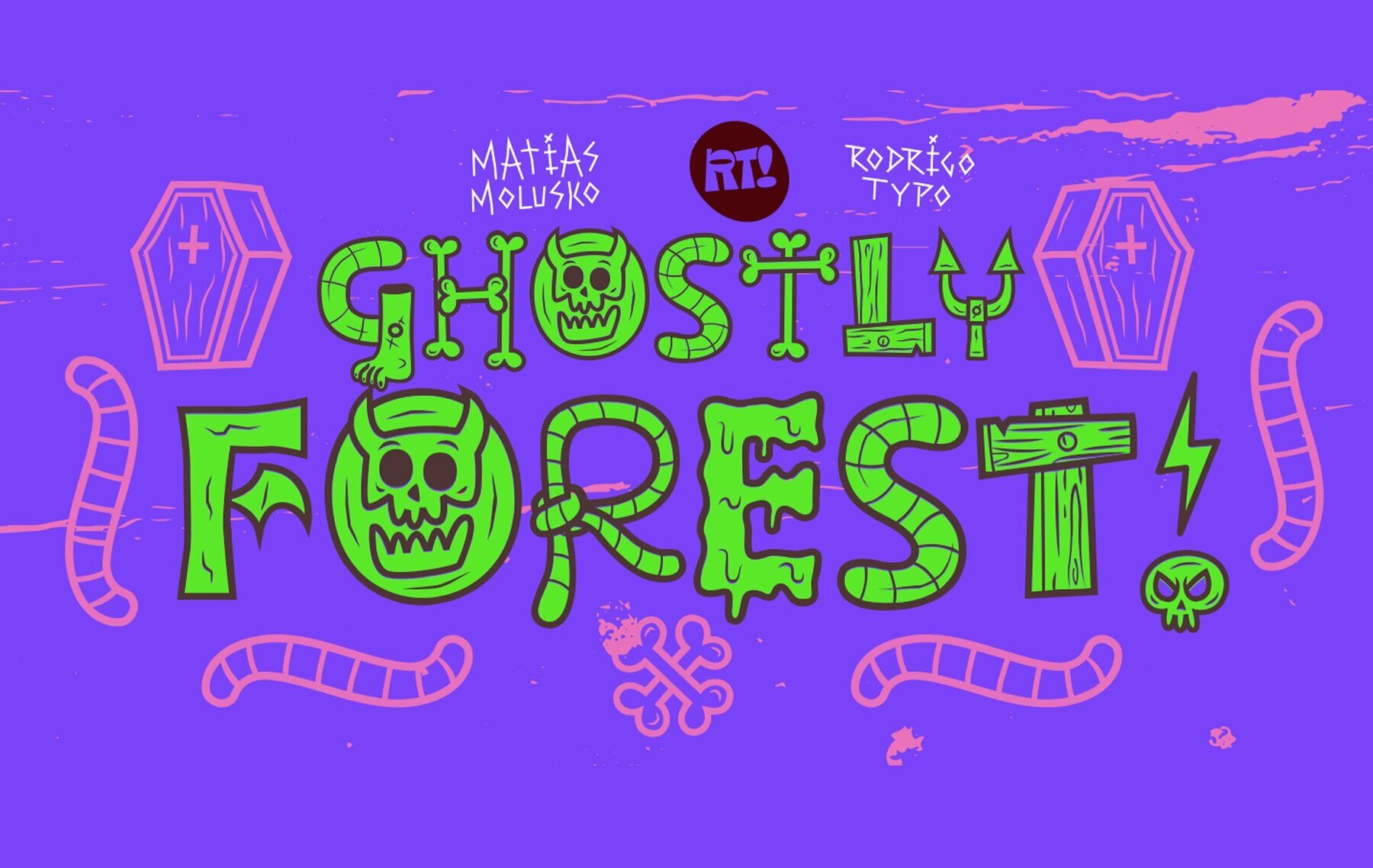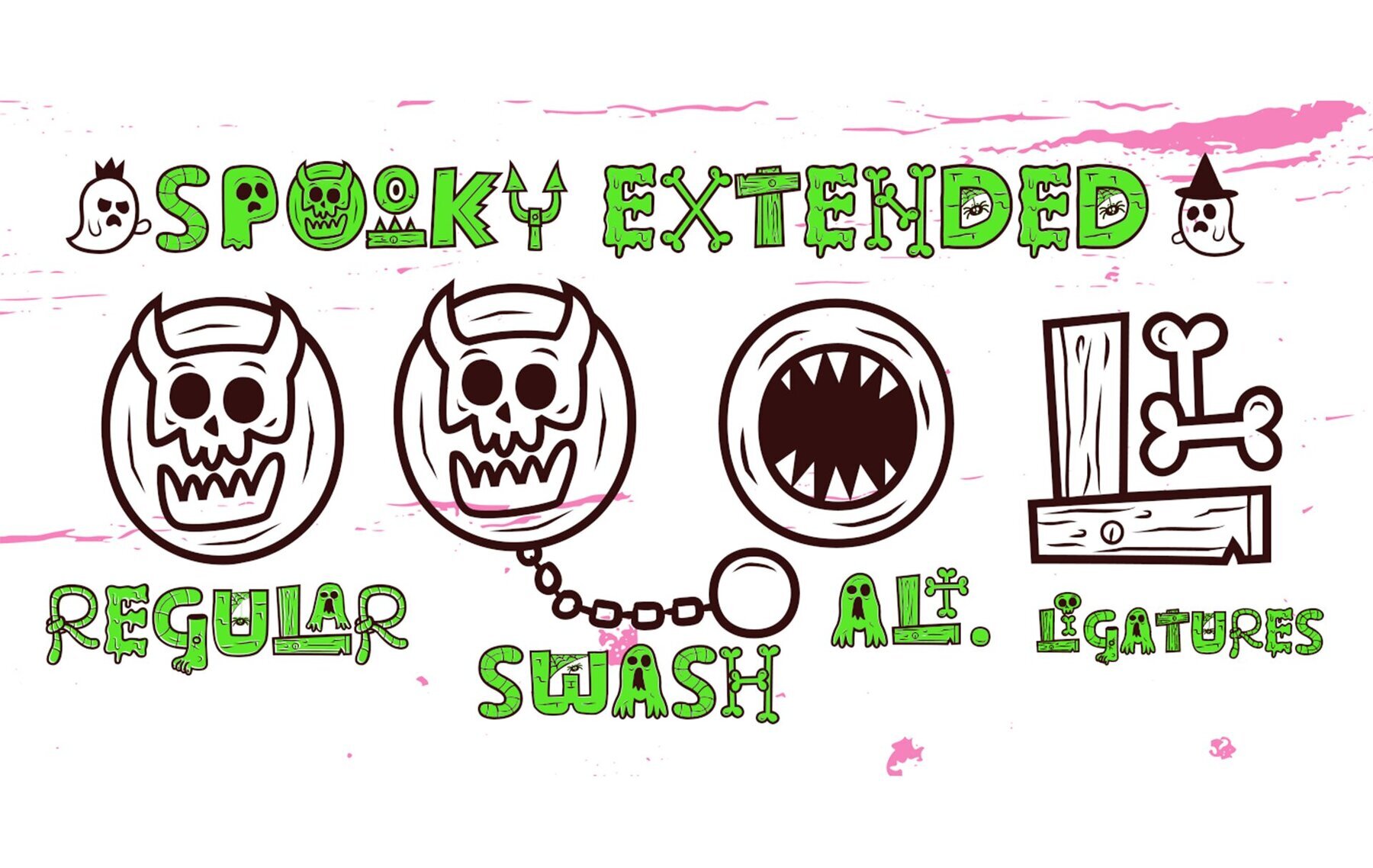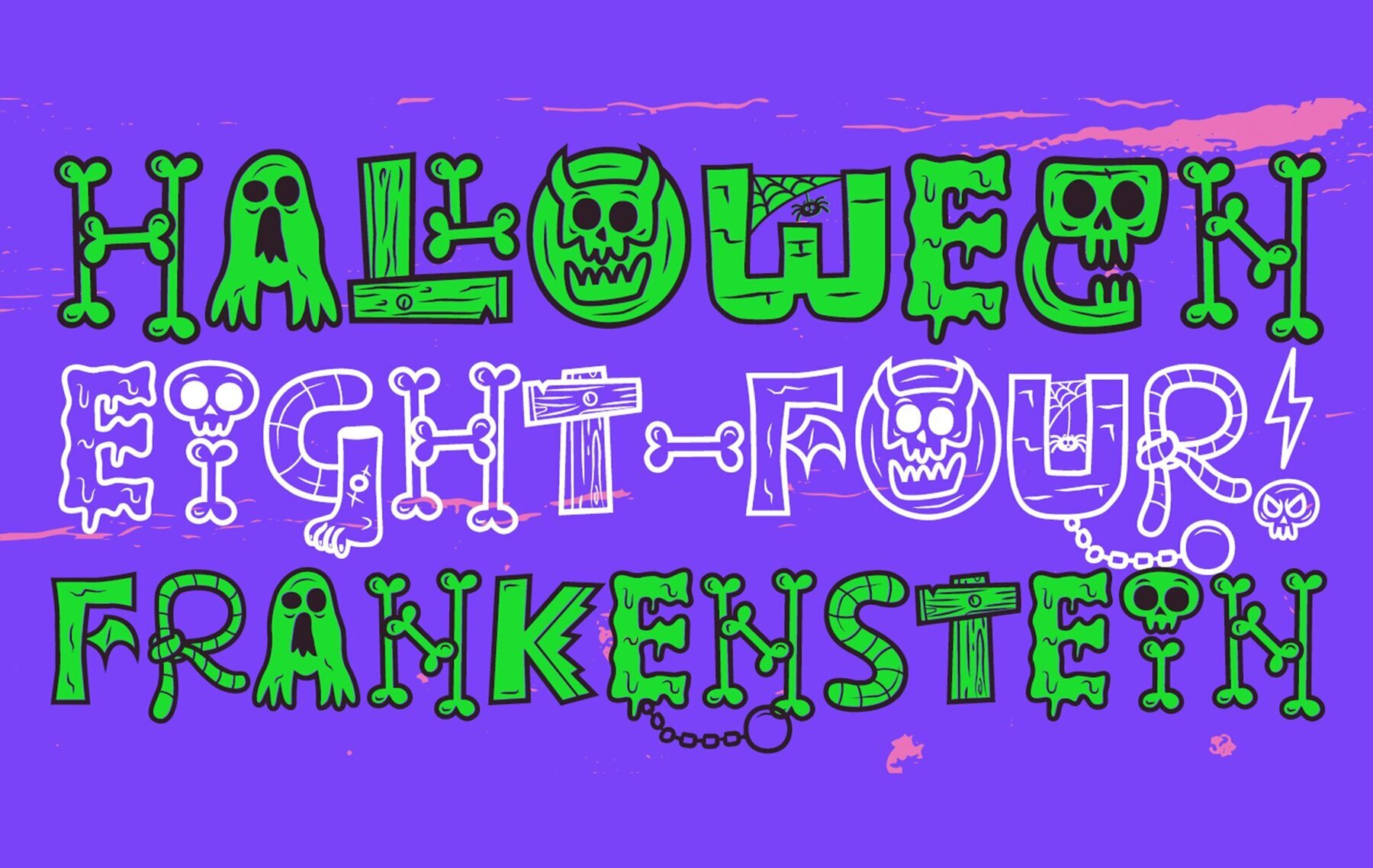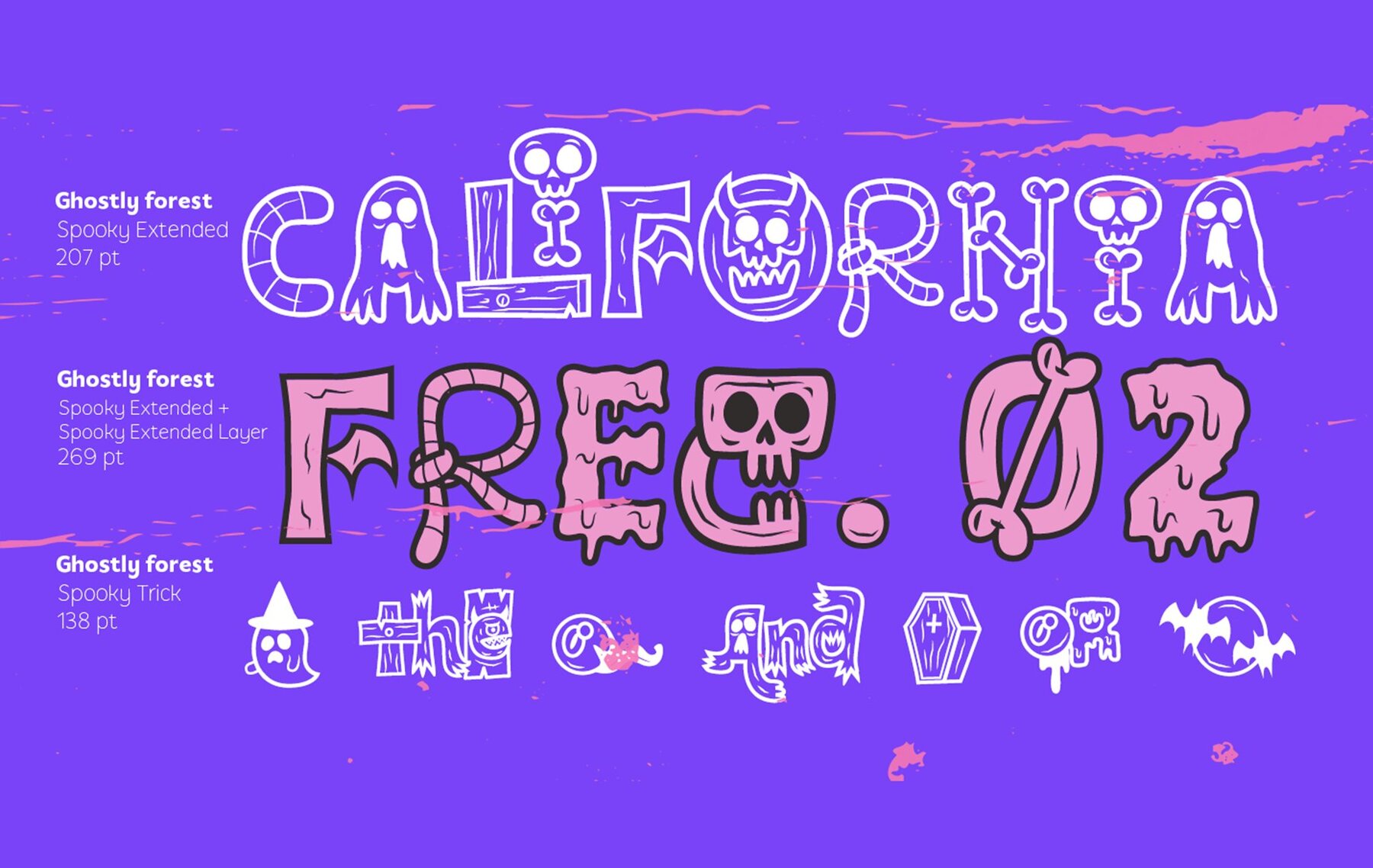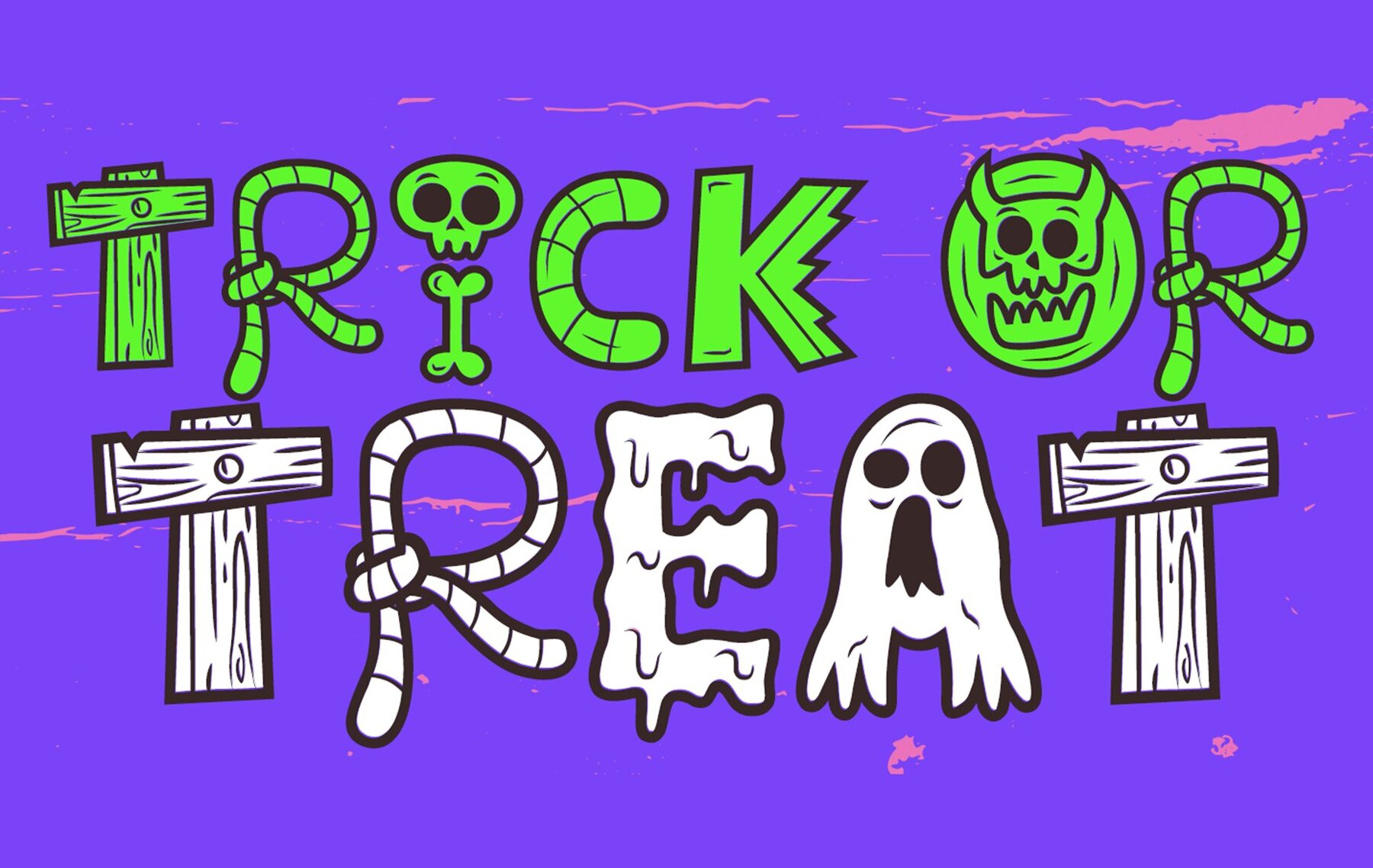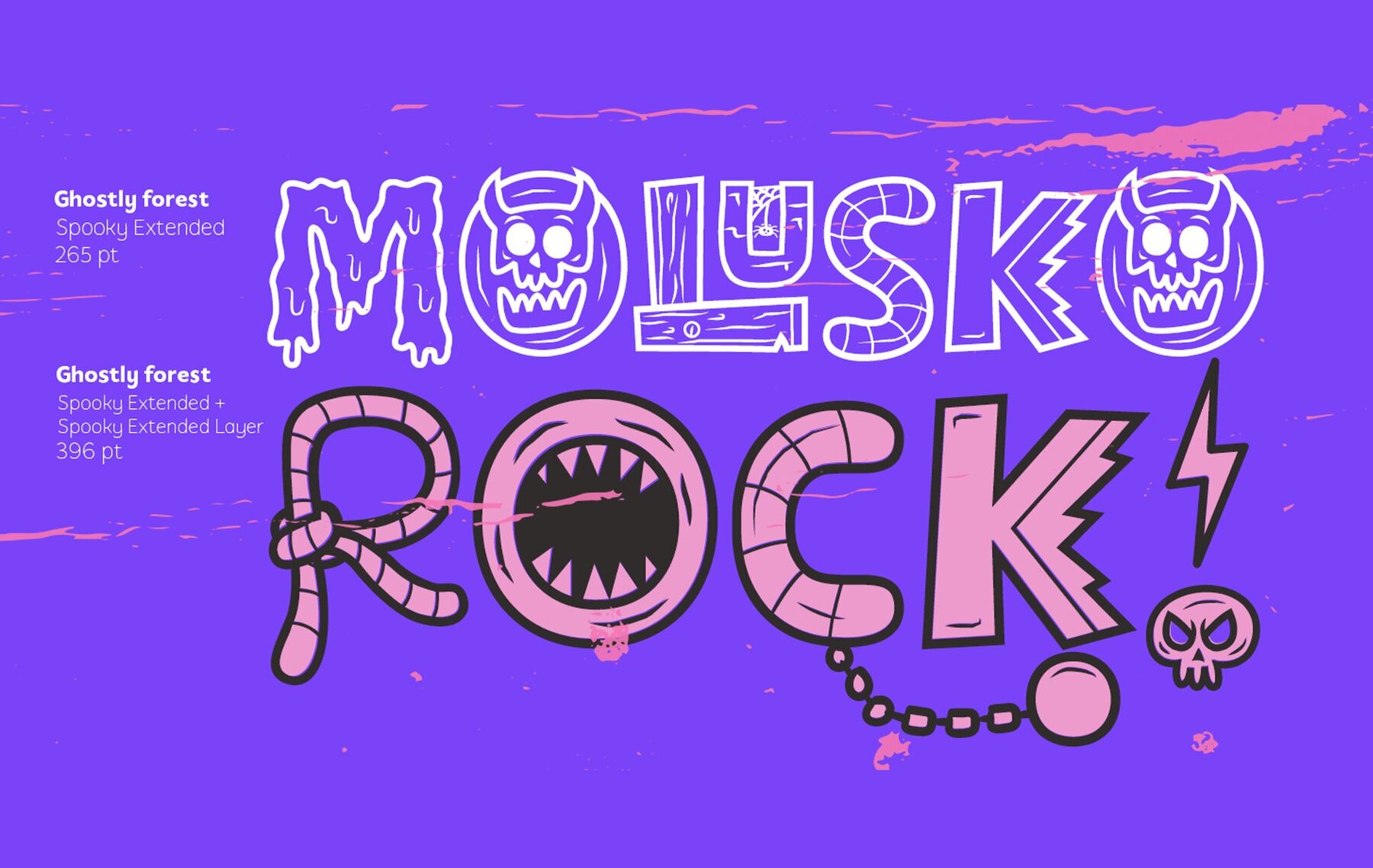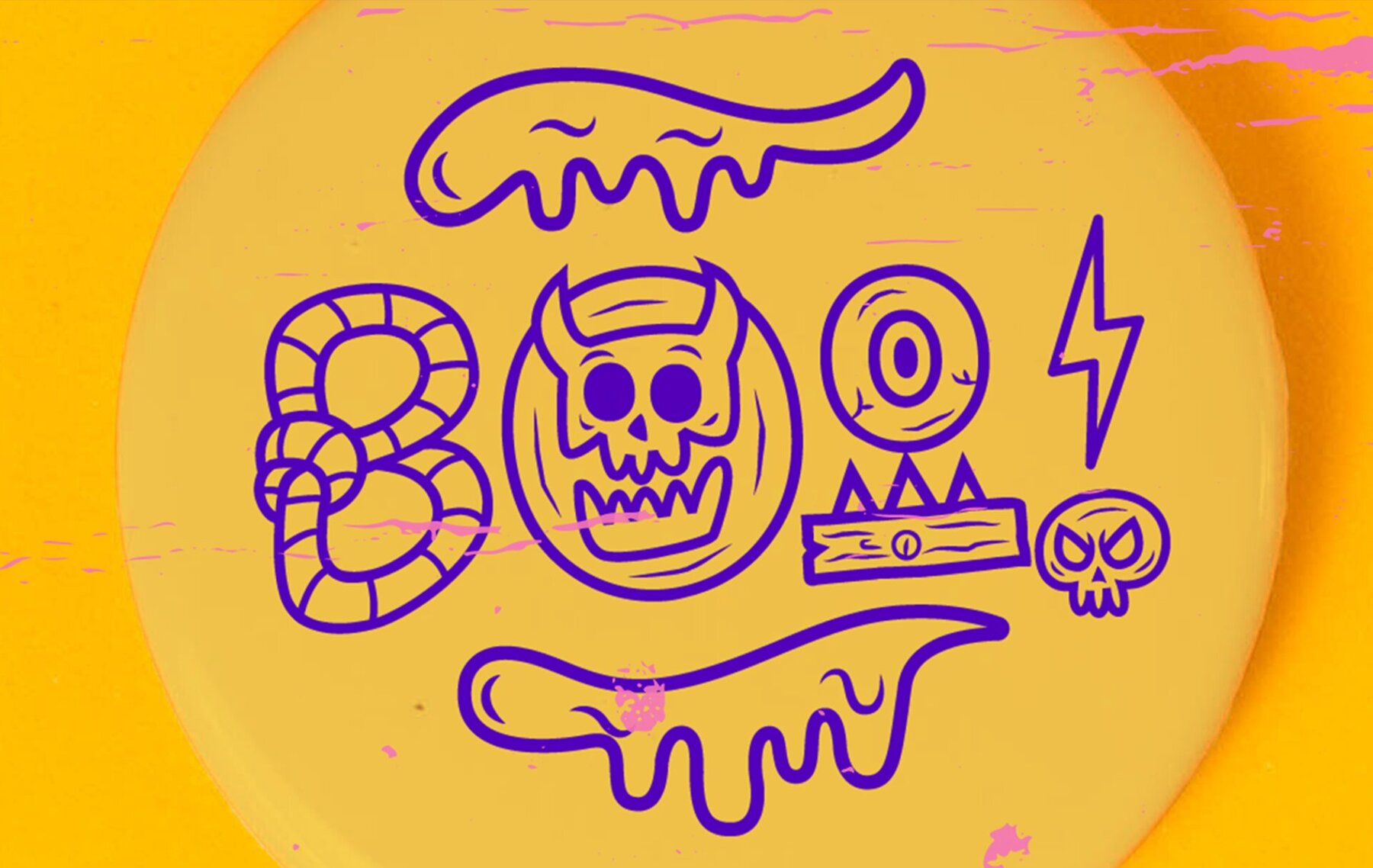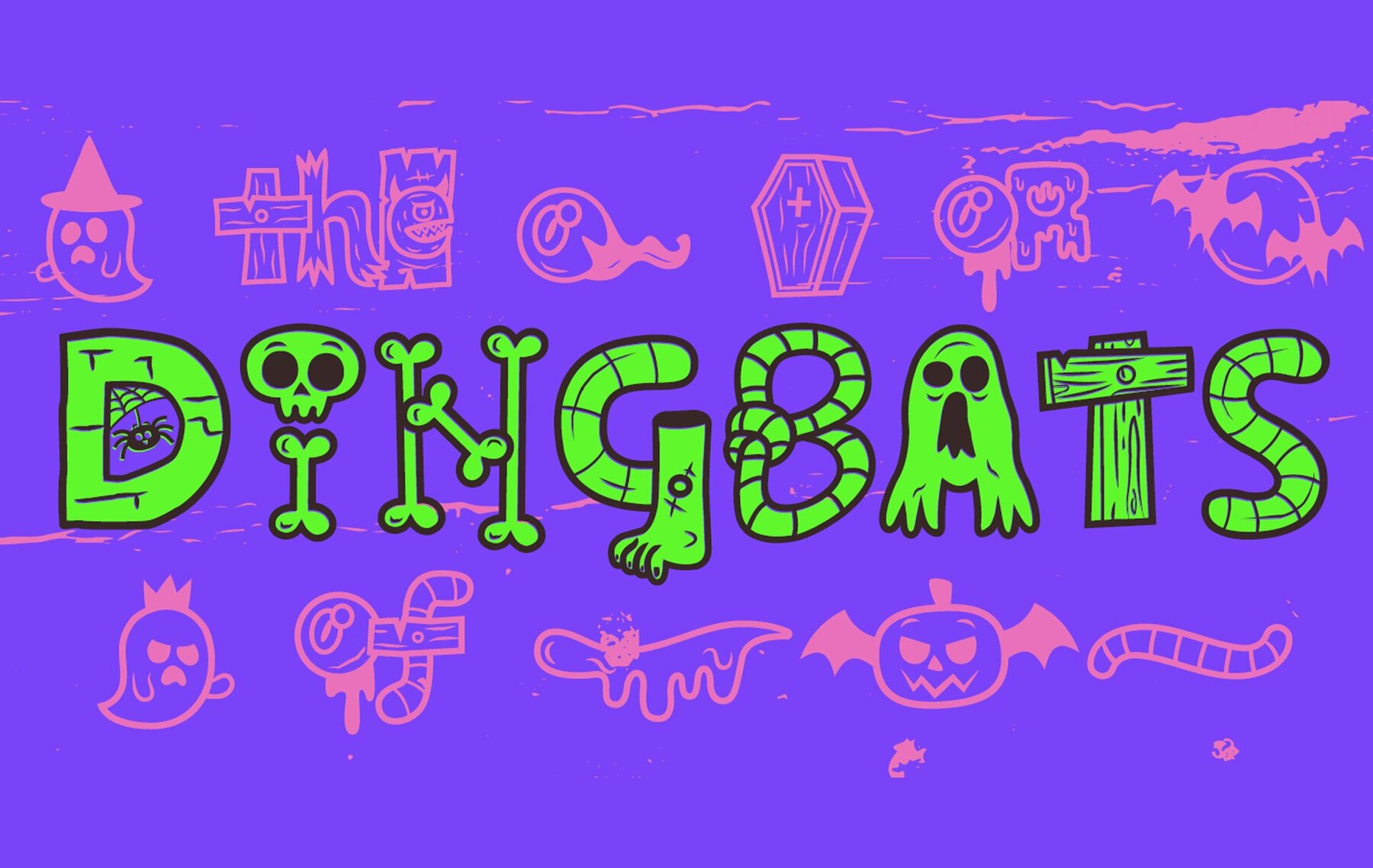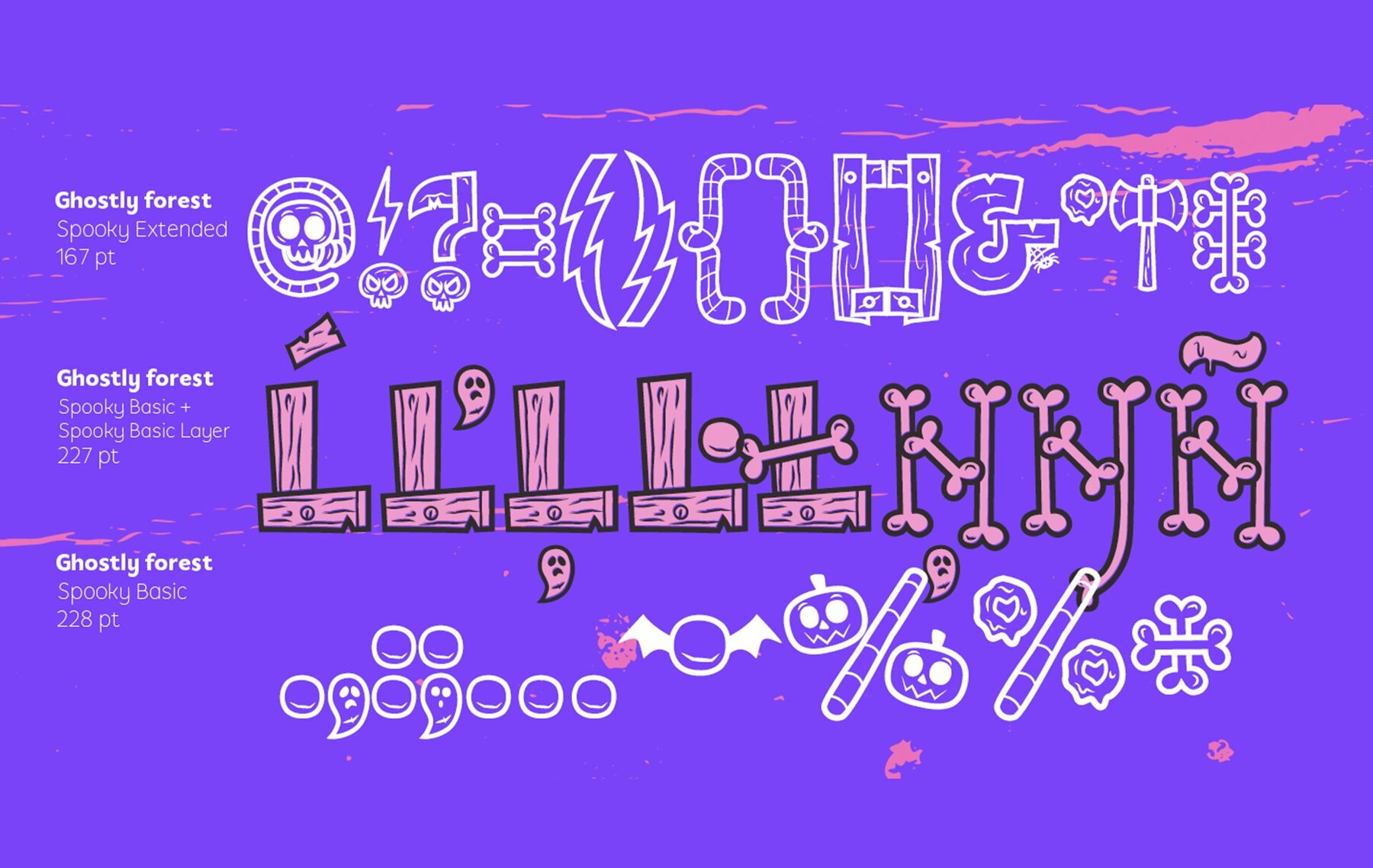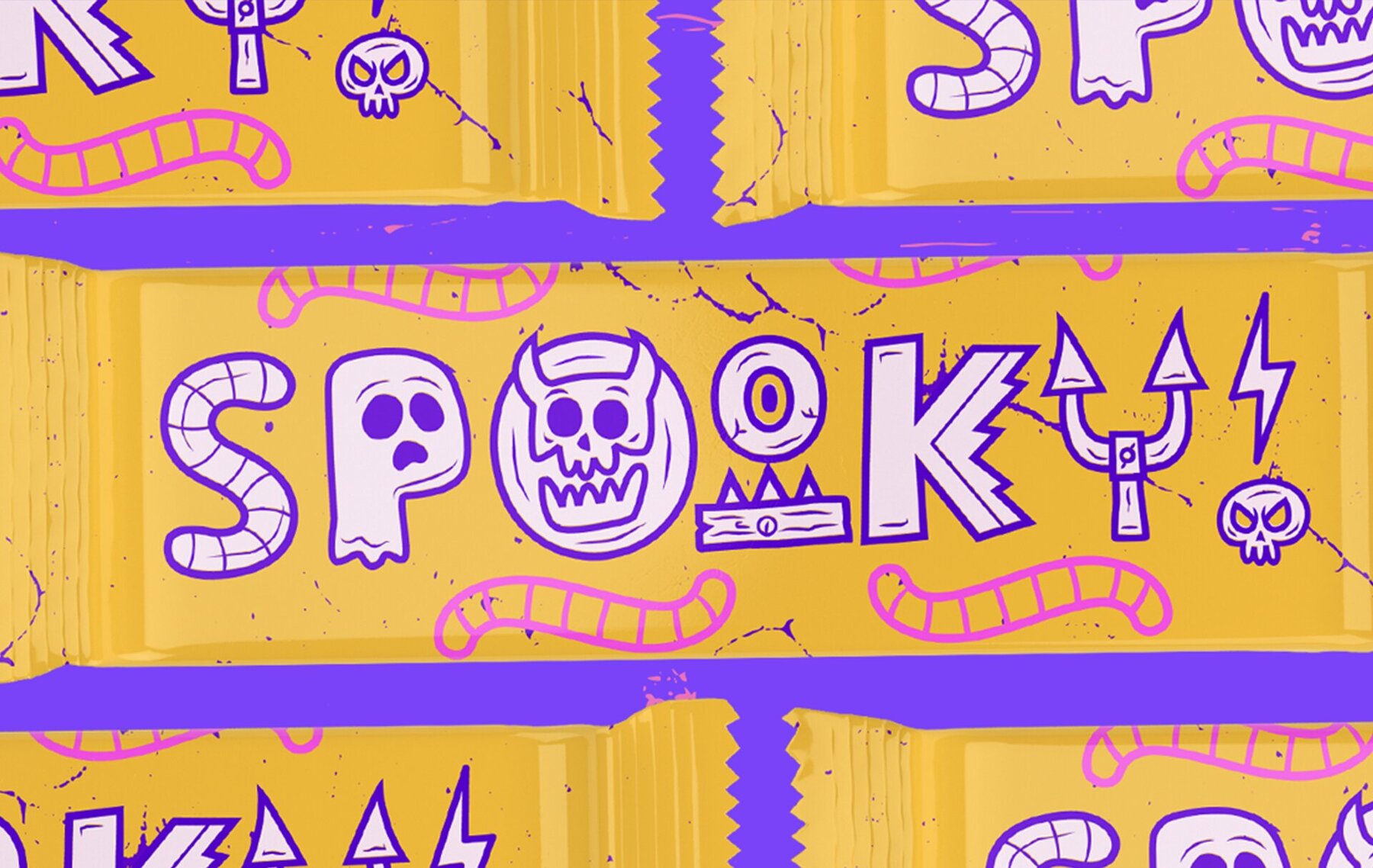
Ghostly Forest Font
Ghostly forest Spooky Basic
Ghostly forest Spooky Basic Layer
Ghostly forest Spooky Extended
Ghostly forest Spooky Extended Layer
Ghostly forest Spooky Trick
Ghostly Forest, is an entertaining font that has many options such as ligatures, alternatives, layers, it is special for titles related to halloween or informal design, it contains its extended version as a basic one.